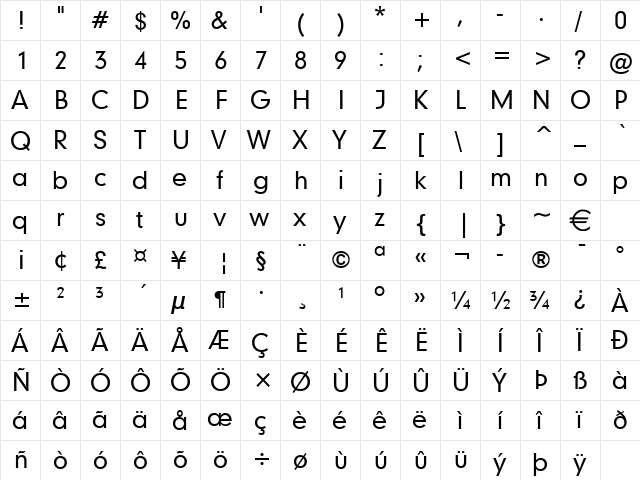
Geo579 Normal Font Preview
Geo579 Normal
Geo579 Normal Font Details
Design Context for Geo579 Typeface
Geo579 takes a measured approach to typography — its balanced proportions and neutral character make it a reliable workhorse for both digital and print work.